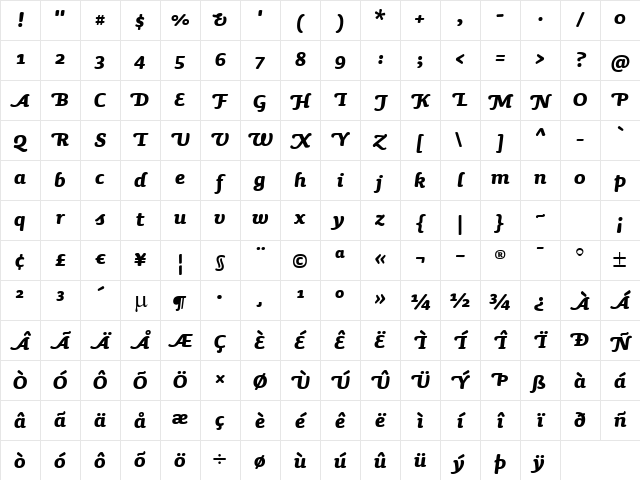
Complete Sauna-BoldItalicSwash Regular glyph index. Displaying only characters natively supported by Sauna-BoldItalicSwash Regular font.
Sauna-BoldItalicSwash flows with the natural rhythm of handwritten lettering, making it ideal for designs that call for warmth and personal expression. Its bold stroke weight gives it real presence on the page.
Font Pairing: Combine Sauna-BoldItalicSwash with a simple geometric sans for maximum contrast - the tension between flowing curves and clean structure is a classic typographic pairing.
Pro Tip: Use Sauna-BoldItalicSwash for short runs of text - names, titles, or taglines. Extended body copy in script faces tires the eye quickly.